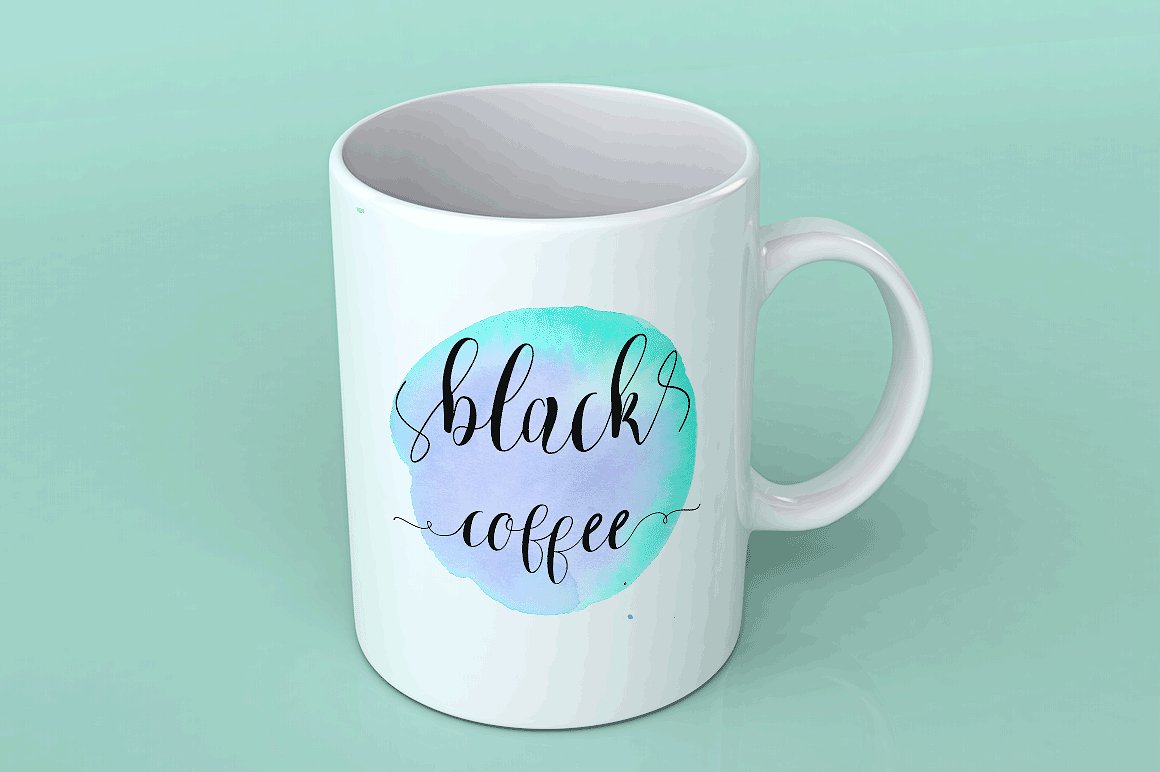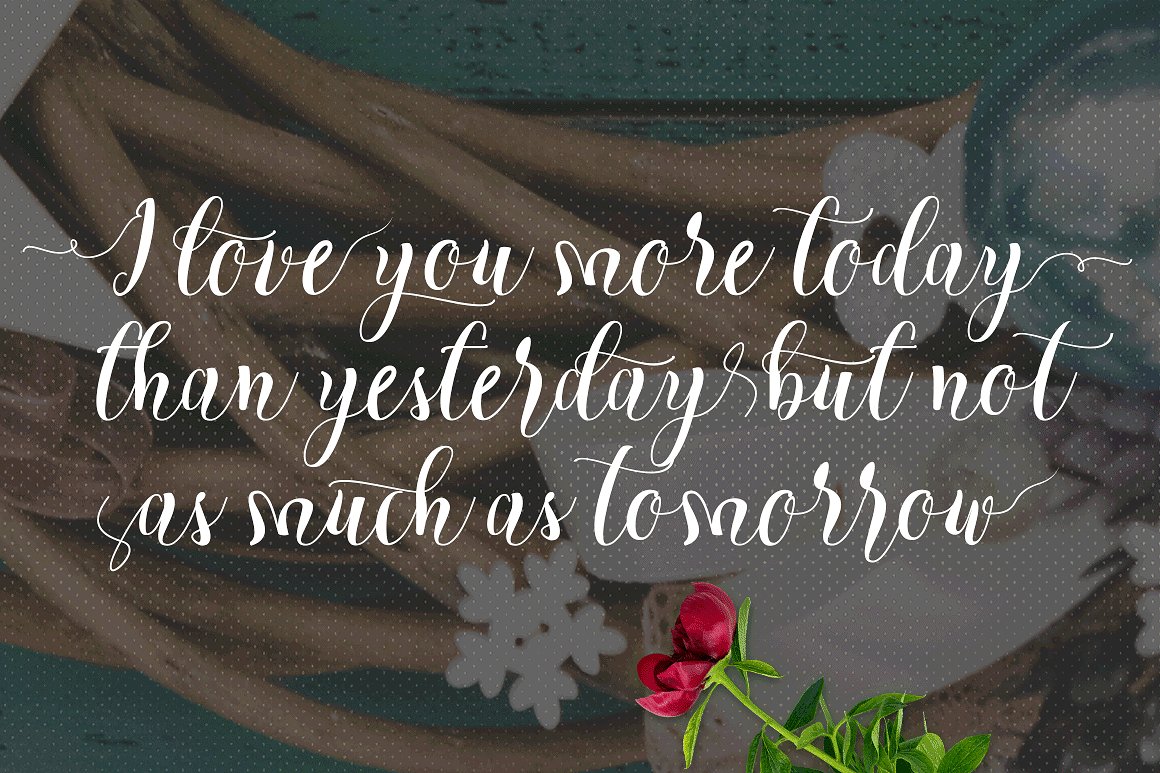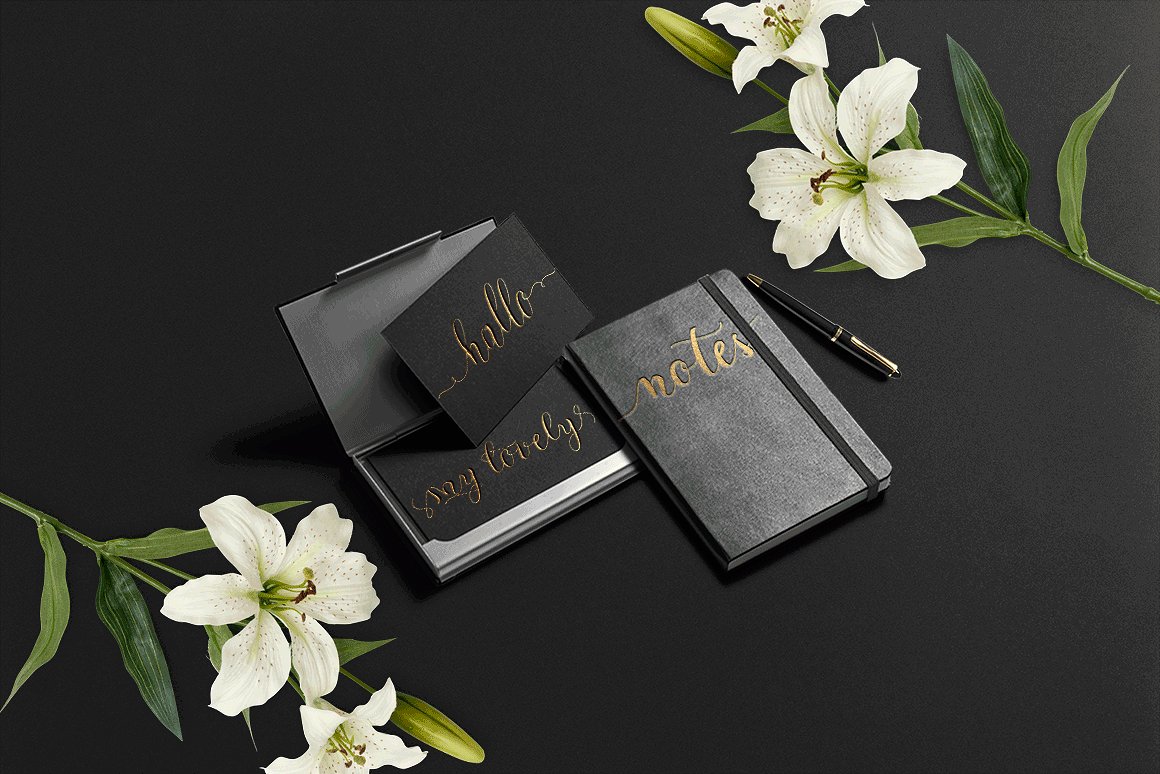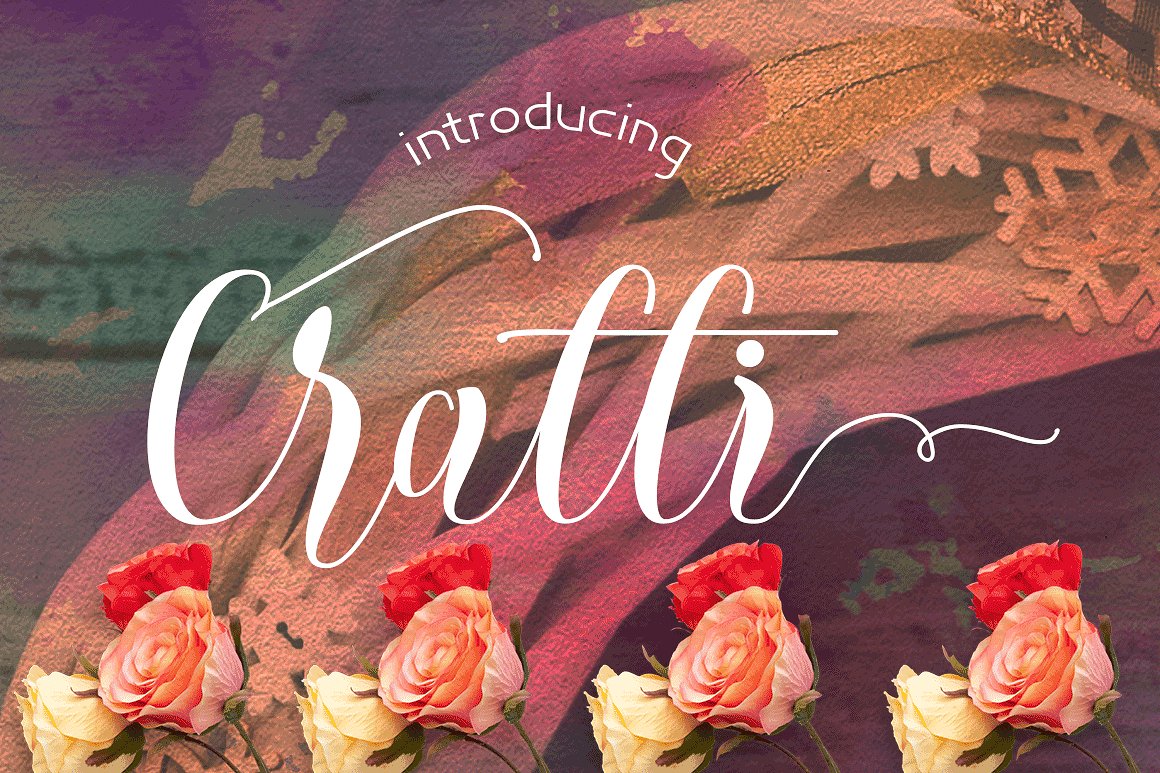
Cratti Script Font
Introducing Cratti Font. Cretti is a modern calligraphy font, with characters dance along the baseline and elegant touch. With almost 440 glyphs. Opentype features with stylistic alternates, ligatures and multiple language support. Can be used for various purposes such as logos, wedding invitation, letterhead, signage,news, t-shirt, heading lable, posters, badges etc.